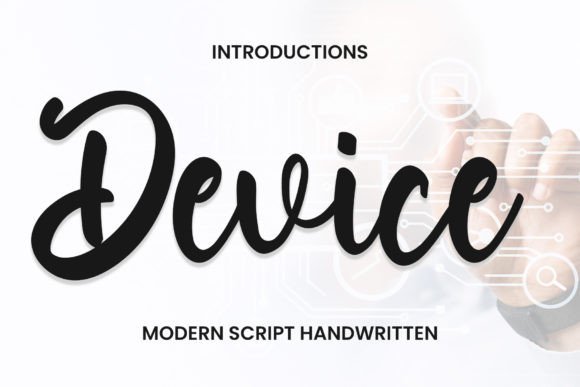
Prepare to be mesmerized by Device, the script font that exudes elegance and sophistication, ready to elevate your business memos to new heights of professionalism. Device is the brainchild of YanStudio, a renowned font foundry dedicated to creating typographic masterpieces. Inspired by the enduring charm of classic calligraphy, Device is a carefully crafted font that embodies both grace and functionality.
With its meticulously balanced strokes, Device strikes the perfect balance between thin and thick, ensuring that your words command attention without overpowering the message. Every curve and flourish has been meticulously designed to enhance the visual appeal of your projects, making Device the perfect choice for discerning designers and business professionals seeking a touch of timeless elegance.
Unlock the full potential of Device with its PUA encoding, granting you effortless access to a treasure trove of glyphs and swashes. Unleash your creativity and add a touch of personal flair to your designs, transforming ordinary text into captivating works of art.
Device is more than just a font; it is an investment in your brand's visual identity. Its timeless appeal ensures that your business memos will stand the test of time, leaving a lasting impression on clients and colleagues alike. Elevate your written communication to new heights of sophistication with Device, the script font that embodies both classic charm and modern elegance.